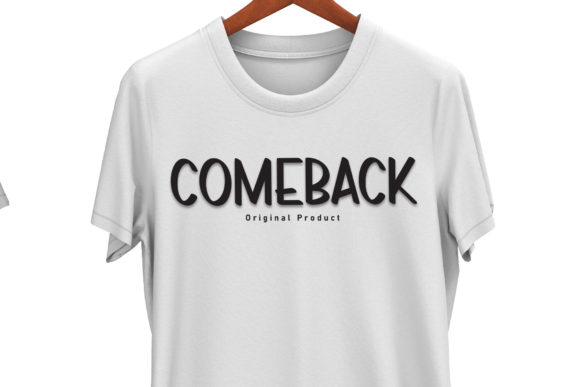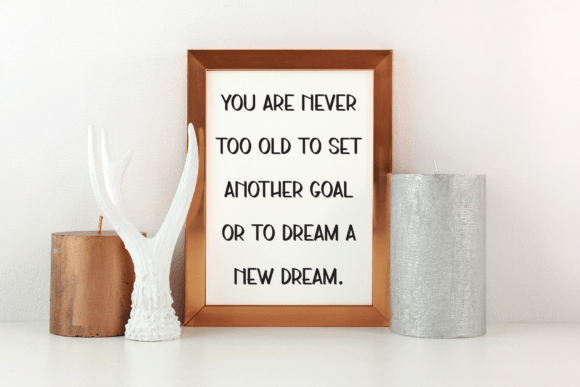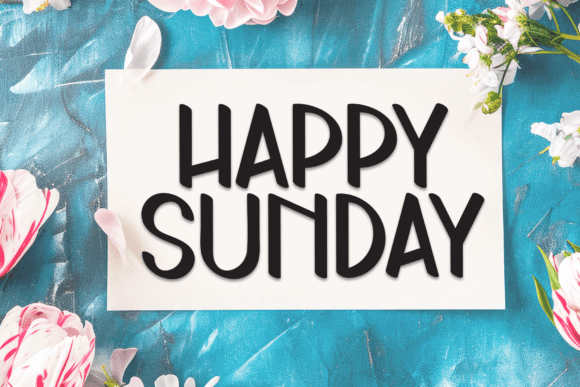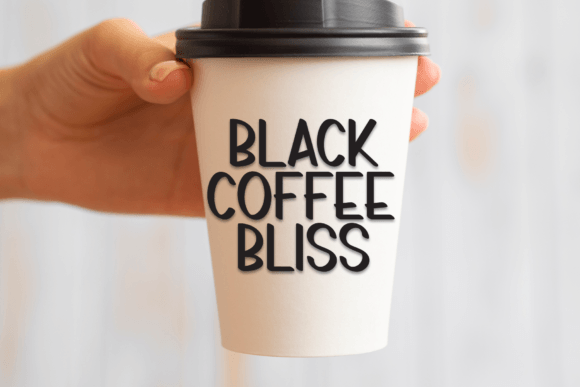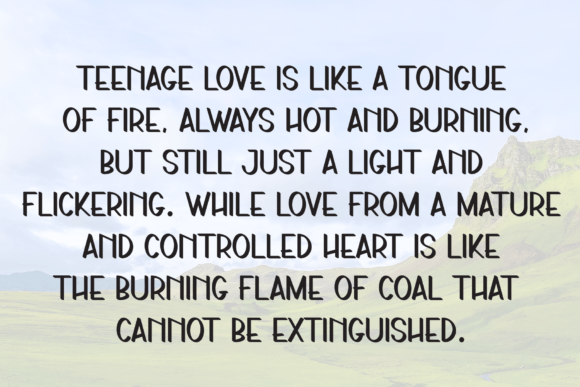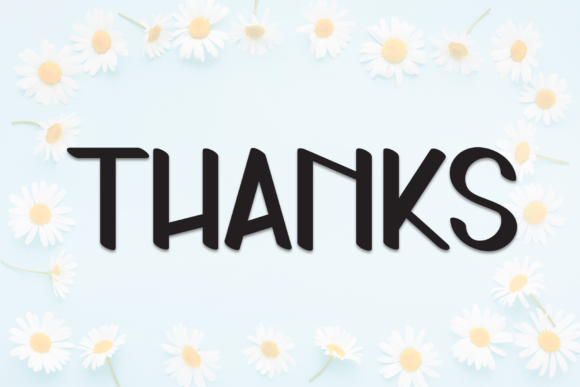
Introducing Daisy Flower Font: Your New Go-To for Charming Designs
Have you ever been in the middle of a design project, and suddenly, you just can’t seem to find the right font? I recall a particularly frustrating moment when I was working on a wedding invitation project. My client wanted something sweet, playful, and utterly charming, but every font I tried seemed to fall flat. That’s when I stumbled upon the Daisy Flower Font, and let me tell you, it was love at first sight! 💕
The Perfect Balance of Sweetness and Friendliness
The Daisy Flower Font is an irresistibly charming, handwritten display font that’s perfect for infusing warmth and creativity into any design project. It perfectly balances sweetness with friendliness, exuding an adorable fun and charm that’s sure to captivate your audience. Whether you’re working on wedding invitations, greeting cards, or any other design project, this font is sure to bring a playful touch that will leave a lasting impression.
- ✨ The font’s playful and whimsical feel is perfect for designs that require a touch of personality.
- ✅ The letters are beautifully crafted, with a perfect balance of curves and lines that make it easy to read.
- 💕 The font’s charm and sweetness make it perfect for designs that require a touch of warmth and personality.
While the Daisy Flower Font is an amazing addition to any design project, there are a few quirks to be aware of. 🤔 For example, some of the letters may appear a bit irregular or imperfect, which can actually add to the font’s charm but might not be suitable for all design projects. ⚠️ Additionally, the font may not be the best choice for body text or long paragraphs, as it can be a bit challenging to read in large quantities.
The Designer Inspiration Behind Daisy Flower Font
The Daisy Flower Font was inspired by the beauty of nature and the charm of handwritten letters. The designer, who wishes to remain anonymous, was inspired by the simple joys of life and wanted to create a font that would bring a touch of warmth and personality to any design project. According to the designer, “The Daisy Flower Font is more than just a font – it’s an invitation to fun and creativity.”
Q: What is the Daisy Flower Font?
A: The Daisy Flower Font is a charming, handwritten display font that’s perfect for infusing warmth and creativity into any design project.
Q: Is the Daisy Flower Font suitable for body text?
A: While the Daisy Flower Font is an amazing addition to any design project, it may not be the best choice for body text or long paragraphs, as it can be a bit challenging to read in large quantities.